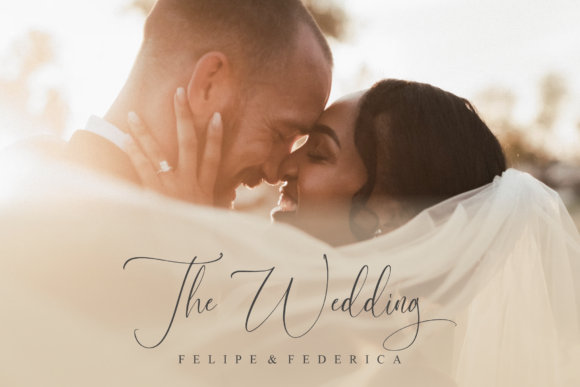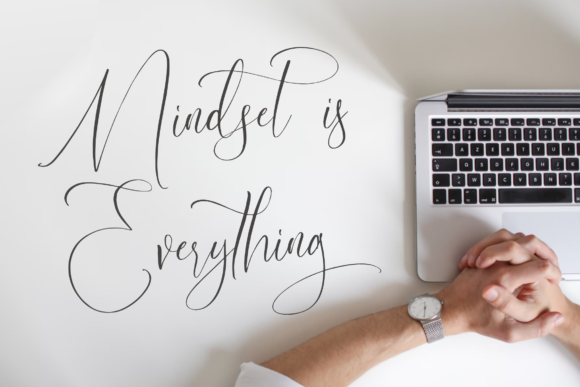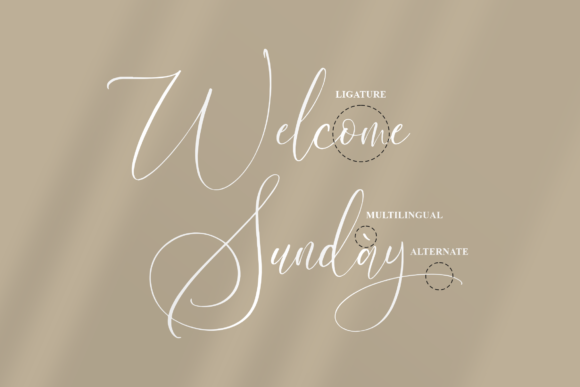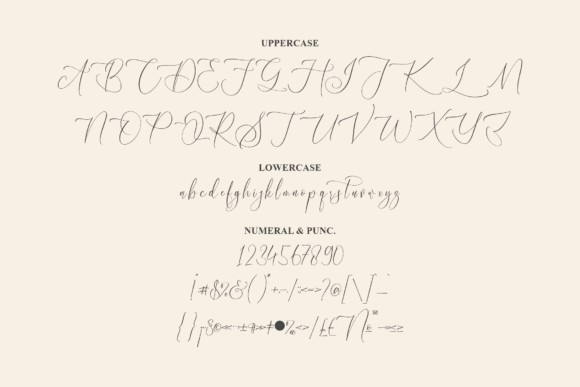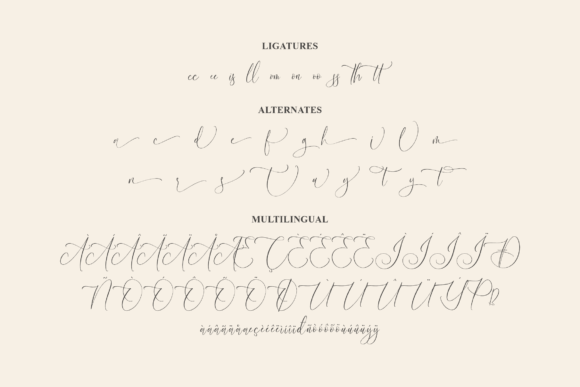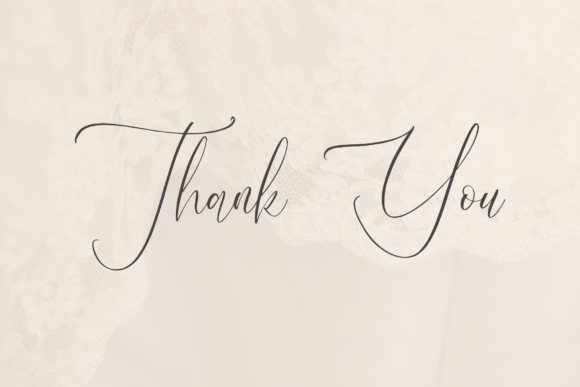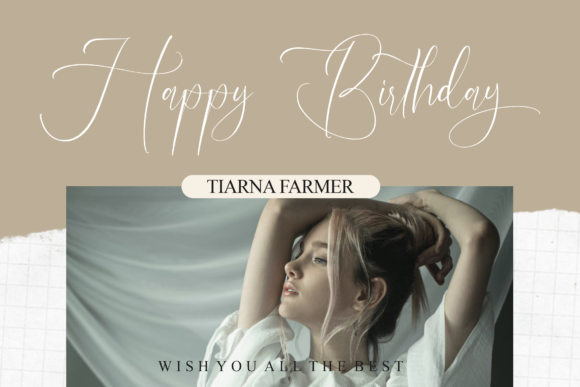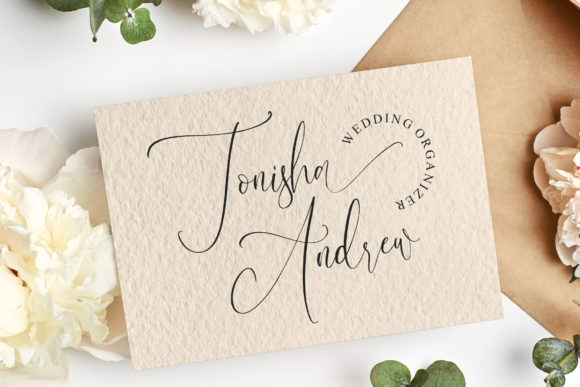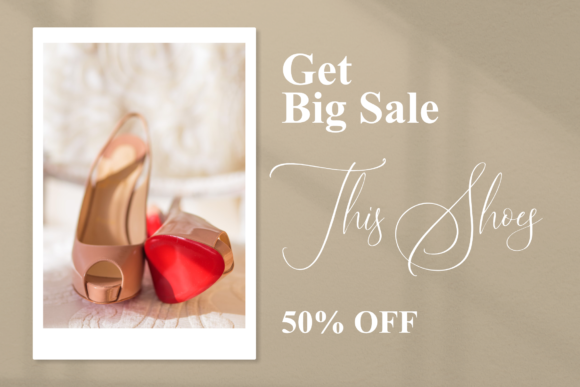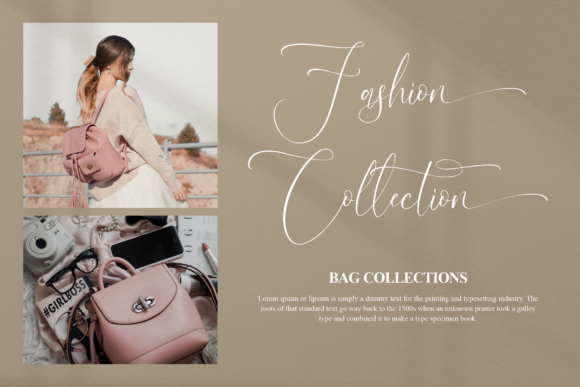
Calistoryan Font
About Calistoryan Font
Calistoryan is a free-flowing script font created for packaging products, invitation cards, flyers, mockups, event posters, and anything else that requires high-quality vibes. It has a beautiful and balanced character, that fits well with the large design pool. This font is PUA encoded which means you can access all of the glyphs and swashes with ease.